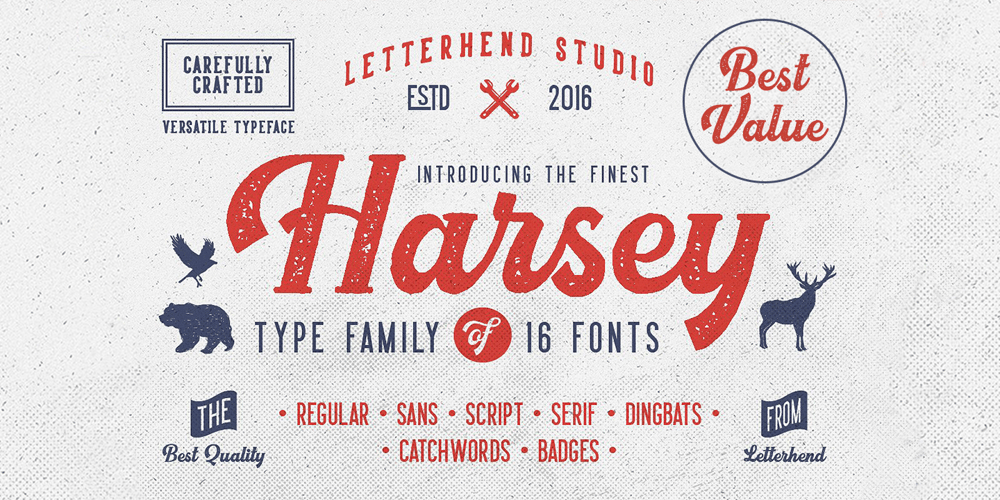
Harsey
Harsey font
Harsey Font Family was designed by Hendry Juanda and published by Letterhend. Harsey contains 16 styles and family package options. Introducing, Harsey Type Toolbox. One of our best-designed product that we ever created. This product consist of many styles such as script, sans, serif, and also includes dingbats, catchwords and badges all comes in font format. What makes this product even more special is you can use and combine all these fonts perfectly matched altogether.